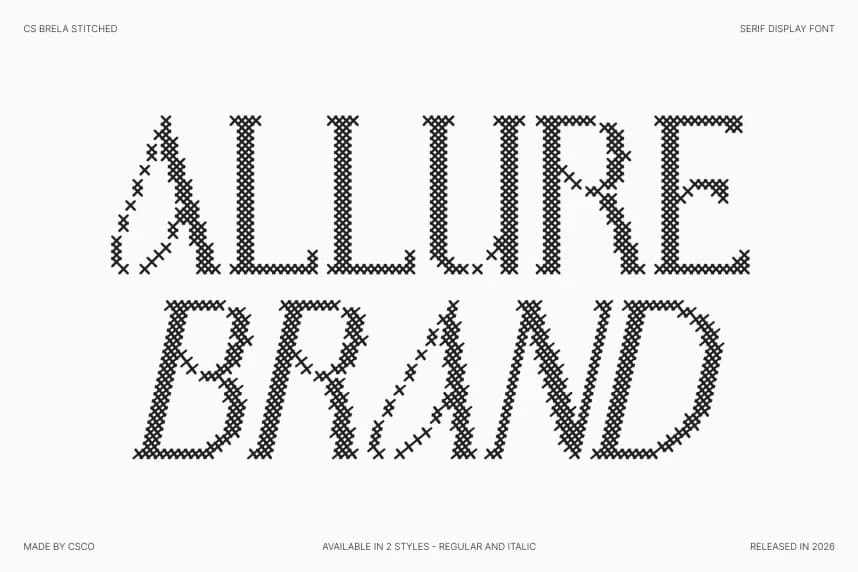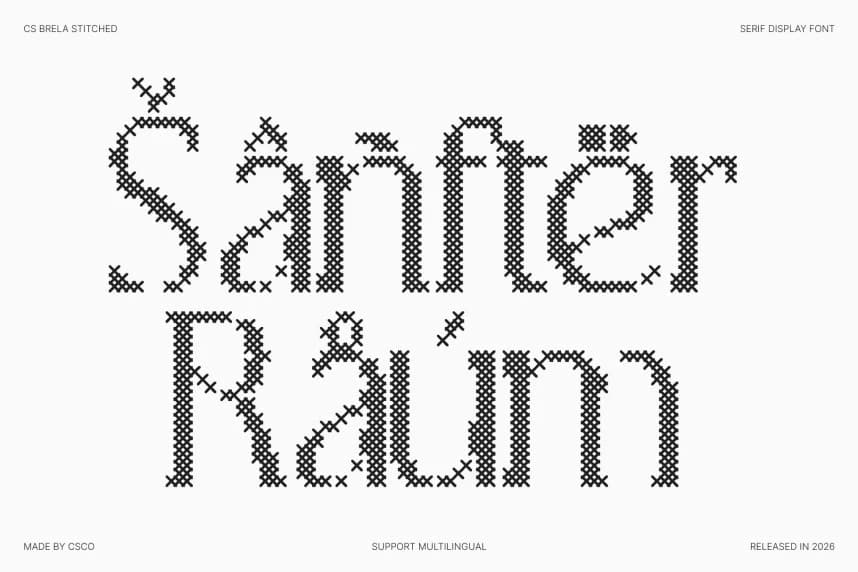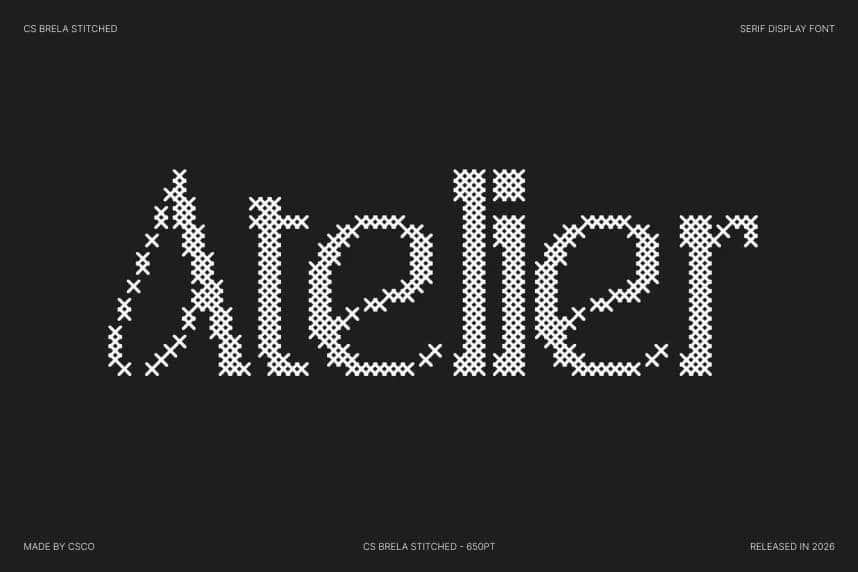
CS Brela Stitched Font
CS Brela Stitched Font – Elegant Serif with Playful Sophistication Elegant Serif with Handcrafted Casual Charm. This is an elegant serif font designed with simple, well-balanced letterforms that emphasize clarity and refinement.